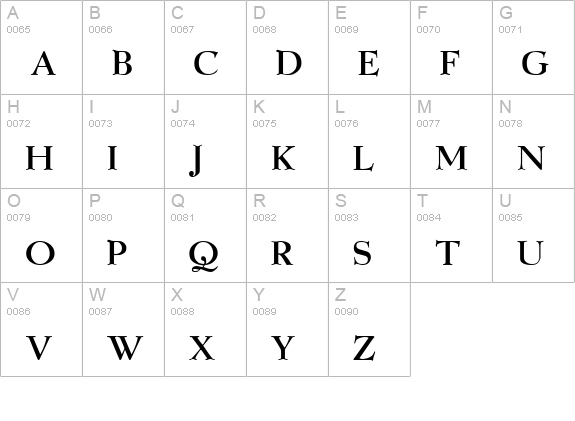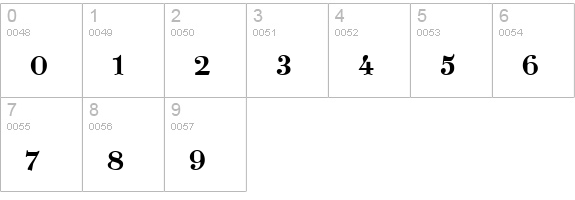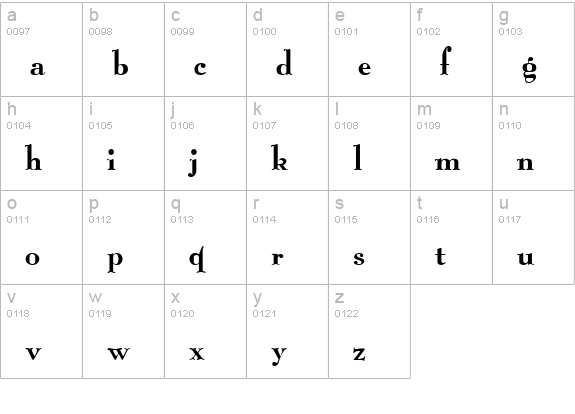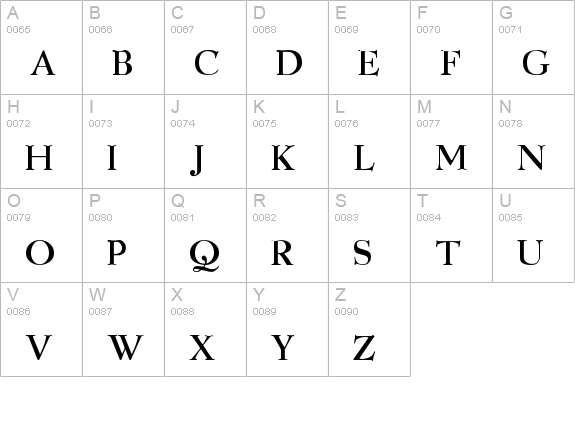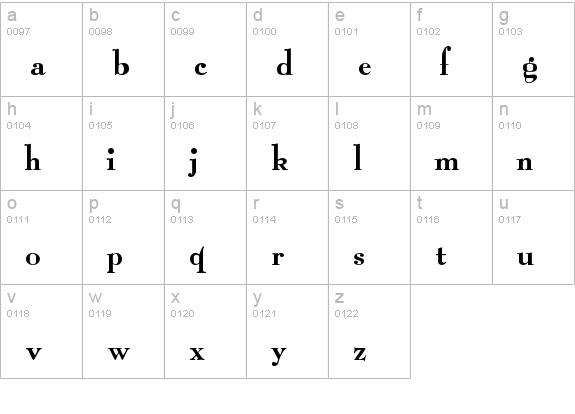
Banting Regular is the standard, neutral variant in the Banting typeface family \xE2\x80\x94 well suited to general body text, paragraphs, and standard typographic work.
Banting Regular is a versatile and elegant font that exudes a classic and timeless appeal. With its clean lines and balanced proportions, this typeface is perfect for a wide range of design projects, from branding to editorial design. The simplicity and sophistication of Banting Regular make it a go-to choice for designers looking to add a touch of refinement to their work. What sets Banting Regular apart is its effortless versatility - it can be used for both headlines and body text with equal impact. The font's legibility and readability make it a practical option for a variety of applications, ensuring that your message is always clear and concise. Best of all, Banting Regular is available for free download at FontsMarket.com, making it accessible to designers of all levels. Whether you're working on a personal project or a client's commission, Banting Regular is a reliable and stylish choice that won't break the bank. Elevate your designs with the timeless charm of Banting Regular today.